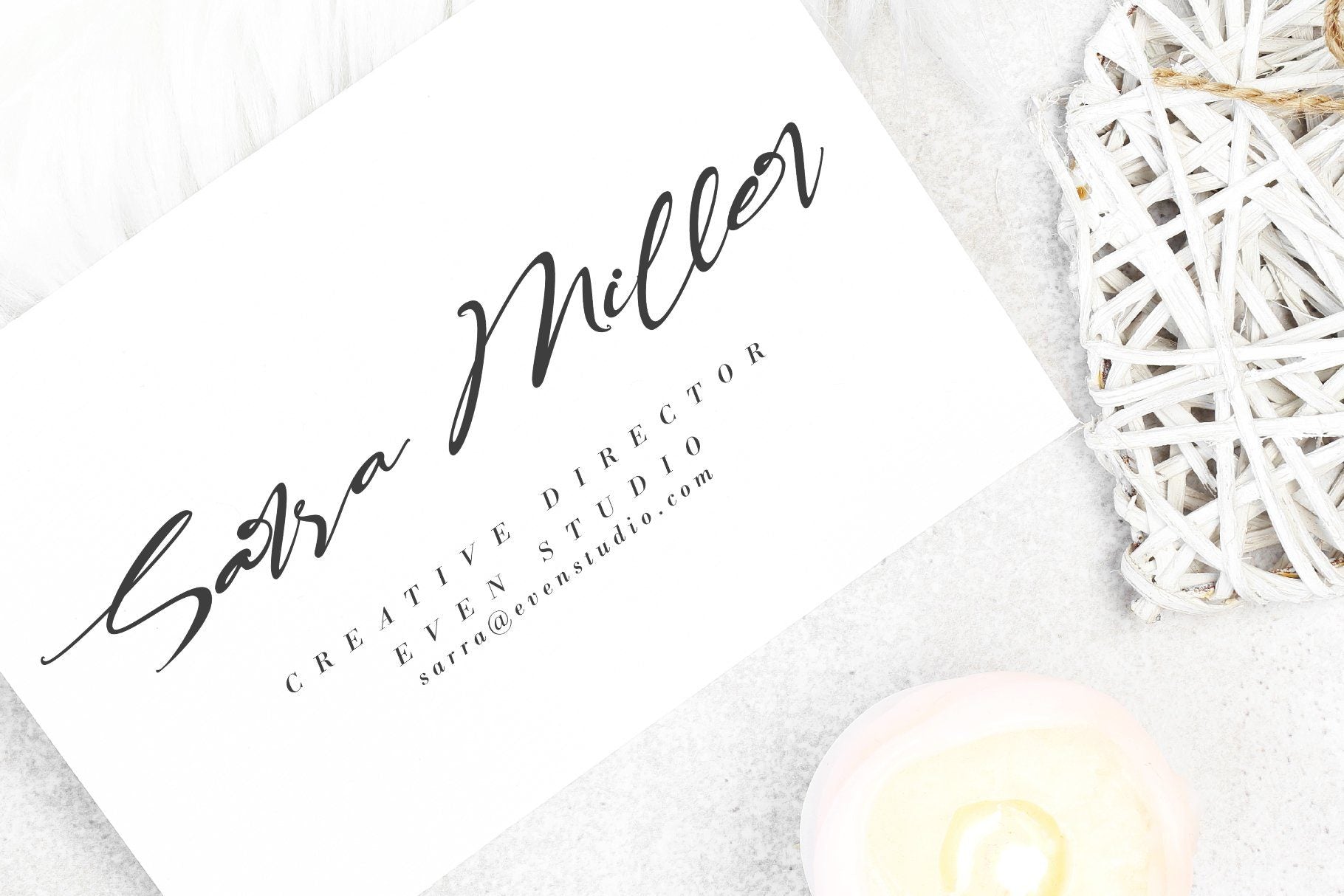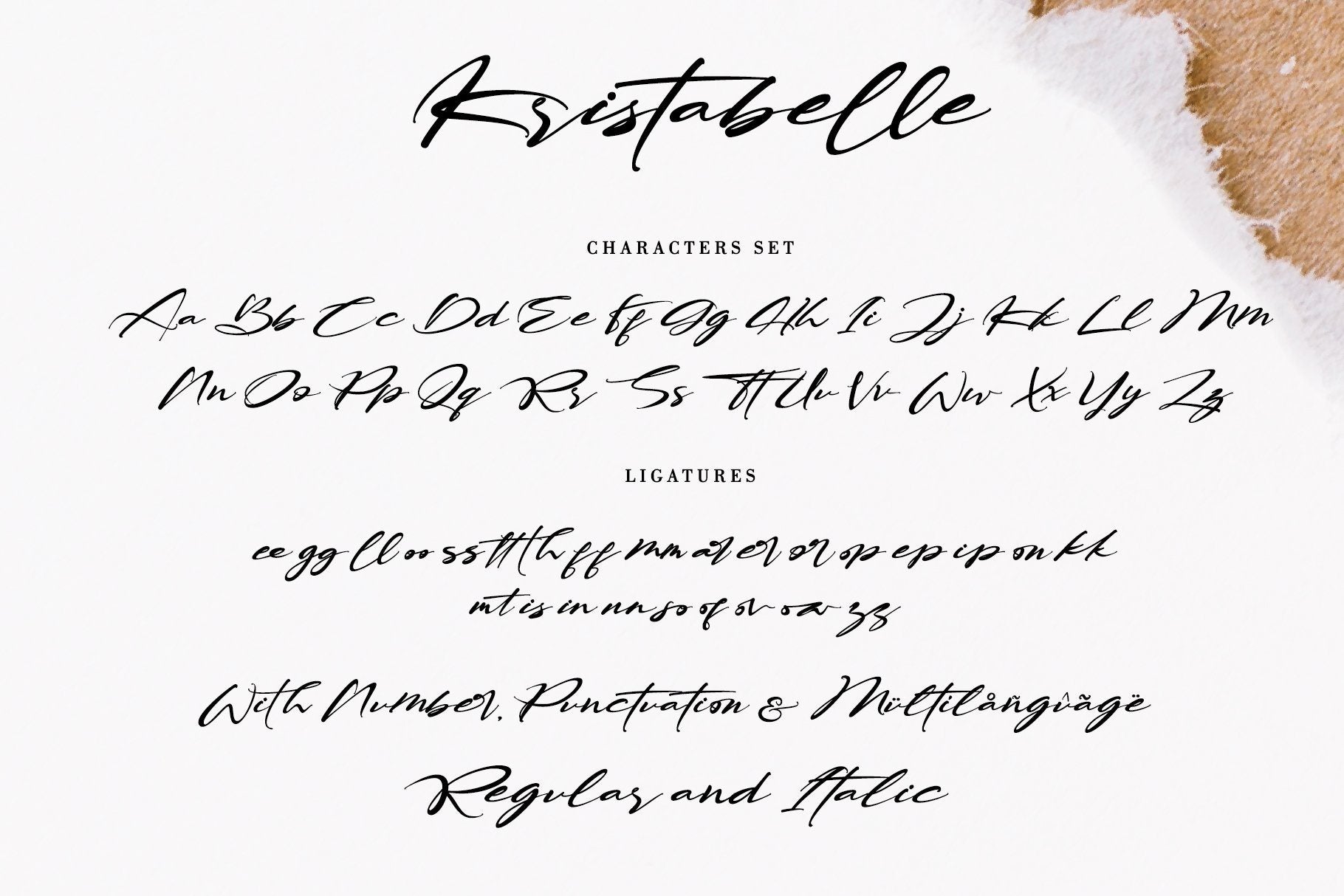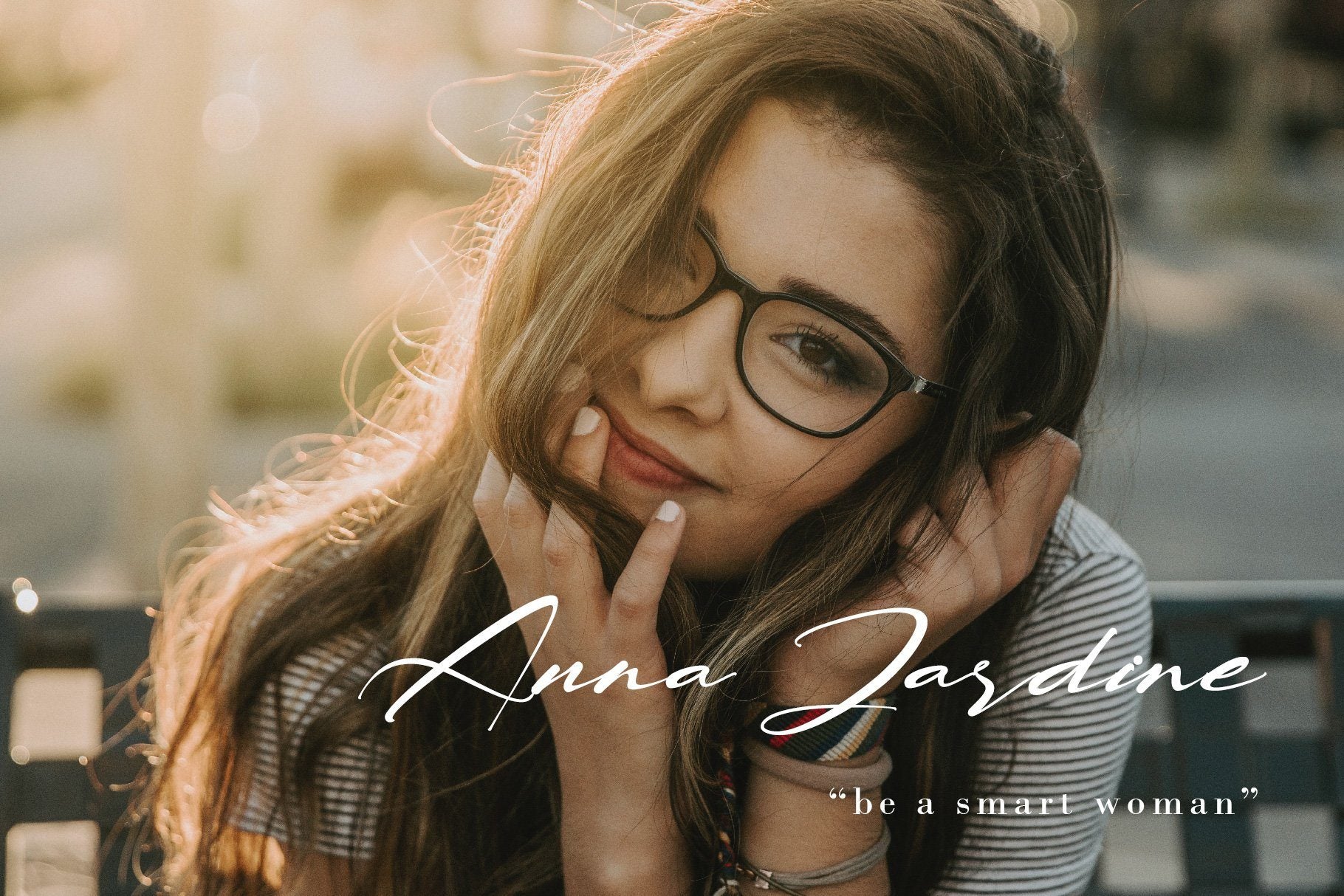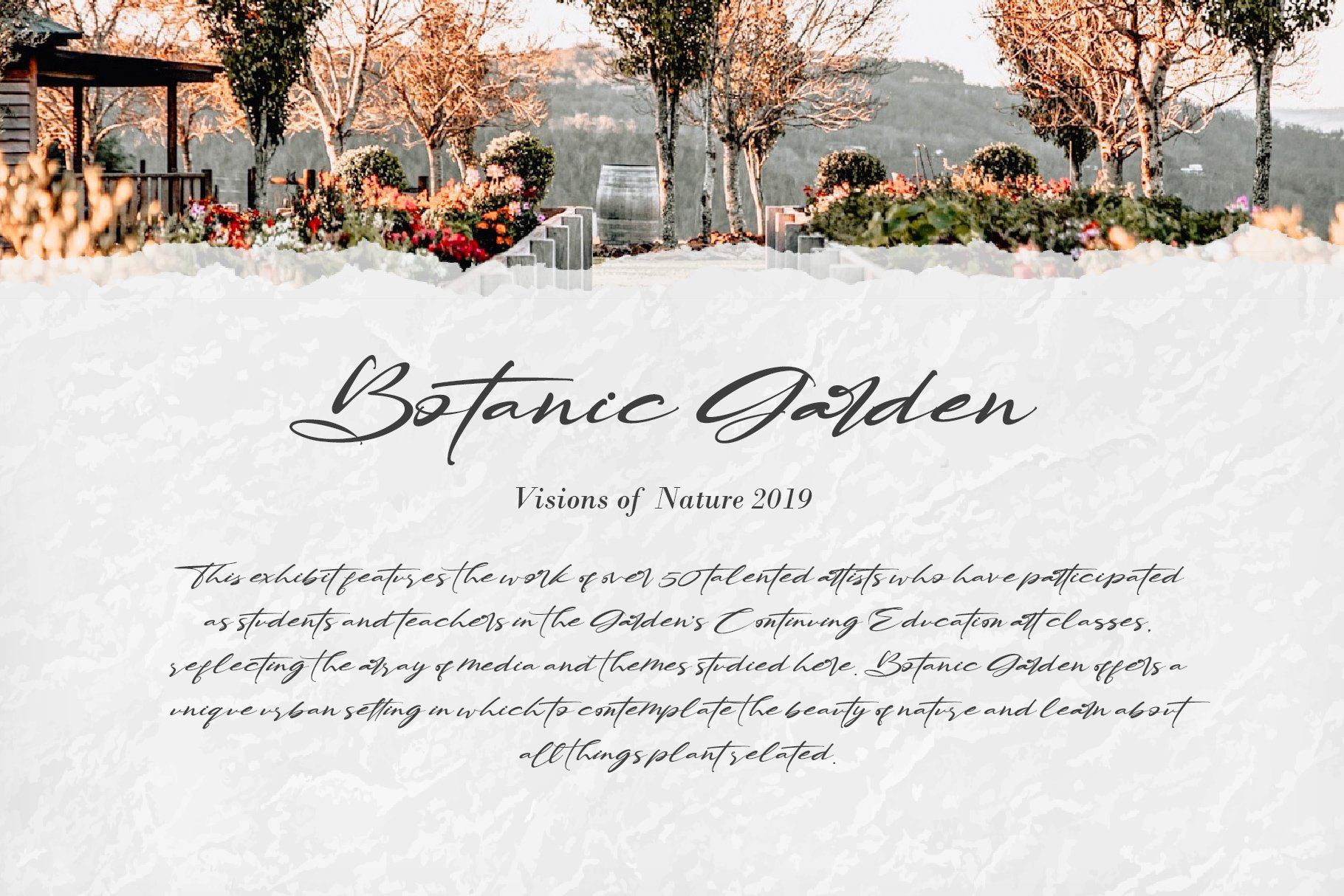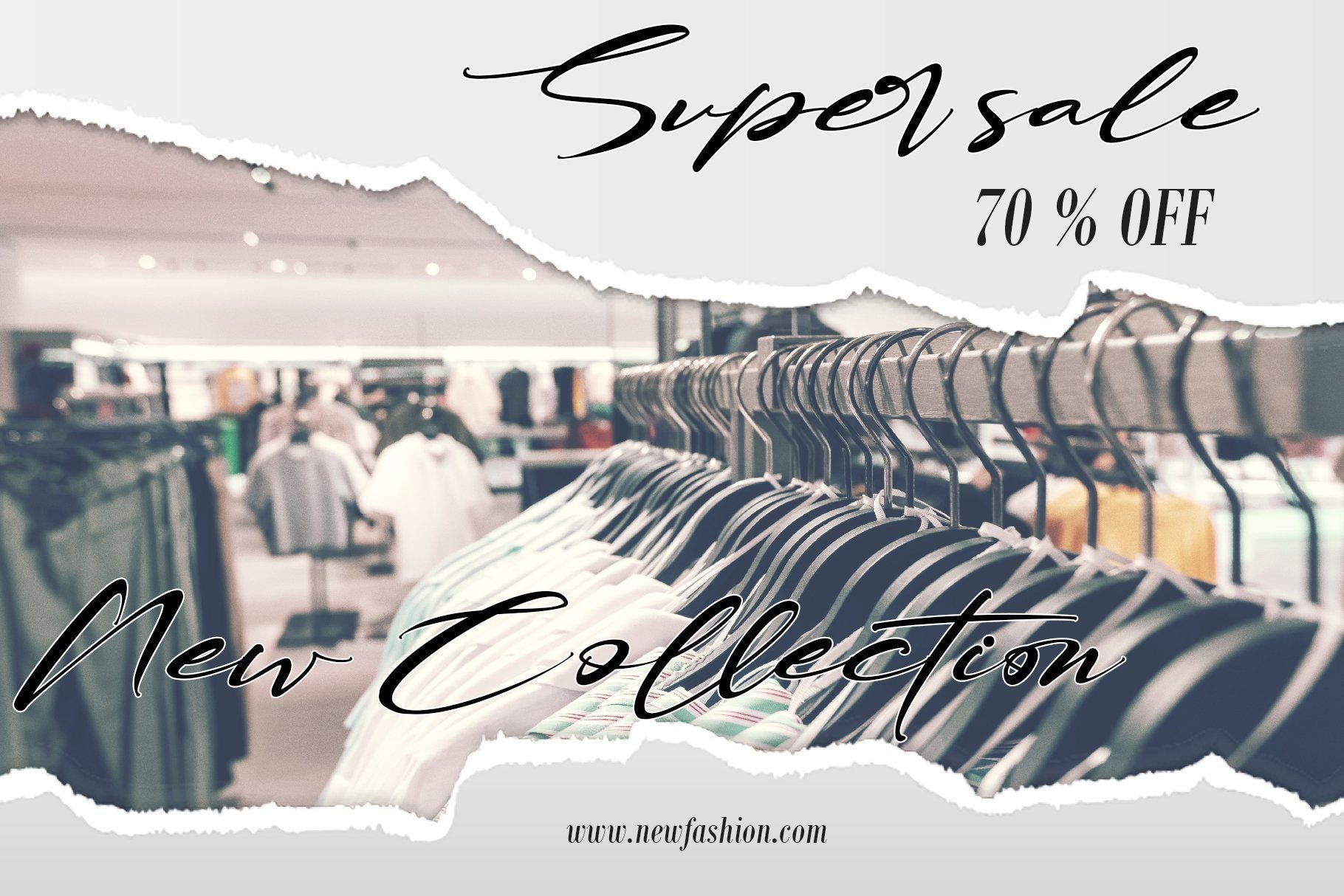
About Kristabelle
Kristabelle is a handwritten script, with a modern and sensible style. This font is ideal for wedding and other romantic invitationals What’s included: Kristabelle (OTF/TTF/WOFF) The style in this font includes: Regular& Italic Works both on Mac & PC Ligatures Simple installations Accessible in the Adobe Illustrator, Adobe Photoshop, Adobe InDesign, CorelDraw, even work on Microsoft Word. Support multilingual; ä ö ü Ä Ö Ü ß ¿ ¡ To access the alternate glyphs, you need a program that supports OpenType features such as Adobe Illustrator CS, Adobe Photoshop CC, Adobe Indesign and CorelDraw. More information about how to access alternate glyphs, check out this link ( http://goo.gl/ZT7PqK ) To stay up to date for my latest job, follow me and let’s be friends because there will be many promos. Our other products : BEST SELLER MILEADILA BEAUTIFUL KISSES ANGELIN GAMOS HERTINA JENNIE ANTIKA AURORA BLACK PINK SIGNATURE California Street BESTOWENS FAMILY